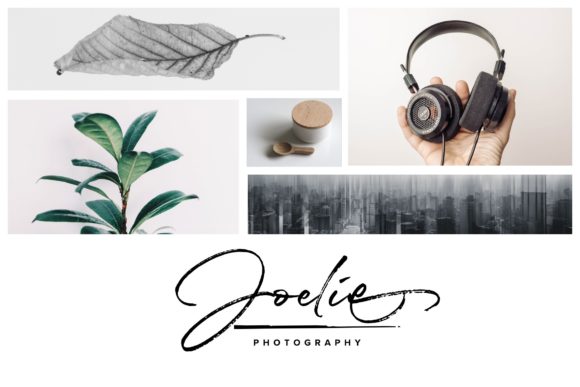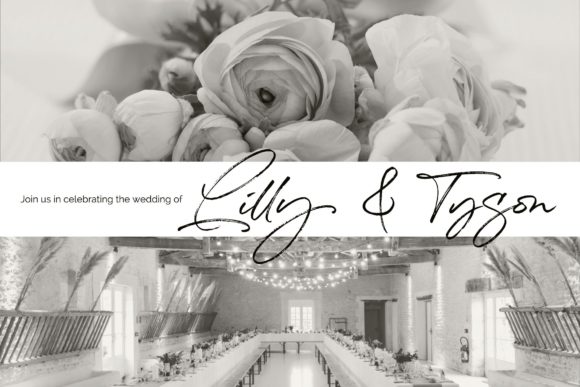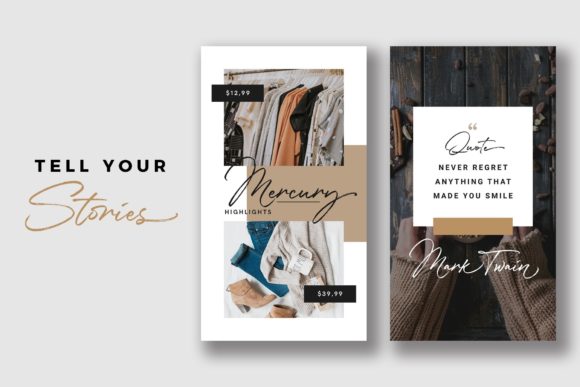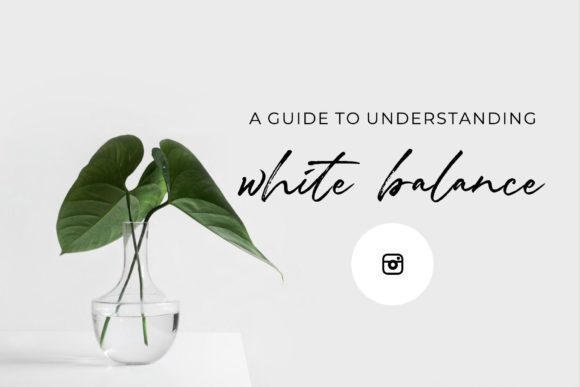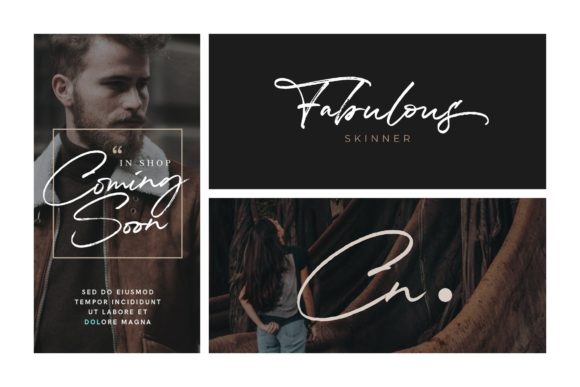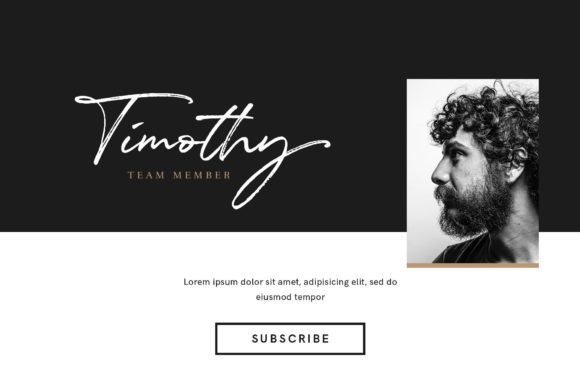
Introduction to Melodiously Script Font
Have you ever been brainstorming for a creative project, staring blankly at a piece of paper, waiting for the perfect idea to strike? It’s that moment of inspiration, when everything falls into place, that makes all the difference between a good design and a great one. For designers, the right font can be the spark that sets their imagination ablaze. And when it comes to creating eye-catching logos, branding, and quotes, there’s one font that stands out from the rest – the Melodiously Script Font.
This lovely and timeless handwritten font is a high-quality design resource that’s sure to elevate any project. With its PUA encoded features, you’ll have access to all the glyphs and swashes you need to create something truly special. And the best part? You can download it for free, complete with a transparent background, making it easy to integrate into any design.
Key Features of Melodiously Script Font
- High-quality design resource ideal for creative projects requiring elegant and sophisticated text.
- Features a transparent background, making it easy to integrate with any design element or color scheme.
- Perfect for designers looking for a unique and melodic script font to add a touch of sophistication to their designs.
Honest Review: Melodiously Script Font
I recently had the chance to work with the Melodiously Script Font on a creative project and I must say, I was quite impressed. As a designer, it’s always exciting to discover new design resources that can elevate our work.
Here are some things that work well: ✨ It’s a high-quality font that adds a touch of elegance to any design. ✨ The script style is perfect for titles and headings. ✨ It’s available for free download, which is always a bonus.
- Transparent background support is also available, making it easy to place the text over images or other backgrounds.
- The font is highly customizable, allowing you to adjust the size, color, and style to fit your design needs.
However, I did encounter a few limitations: ⚠️ The font doesn’t support ligatures, which can make it look a bit rough at times. ⚠️ The font file size is a bit large, which can impact loading times.
Overall, I was pleased with the Melodiously Script Font and would recommend it to anyone looking for a high-quality, free script font for their creative project. With a bit of tweaking, it can be a fantastic addition to any design.
Tips for Getting the Most Out of Melodiously Script Font
Experiment with different font sizes, colors, and styles to create a unique look that complements your design. Also, consider pairing the Melodiously Script Font with other fonts to achieve a balanced and visually appealing design.
Common Use Cases for Melodiously Script Font
The Melodiously Script Font is ideal for various creative projects, including wedding invitations, birthday cards, and social media graphics. Its elegant and sophisticated design makes it perfect for formal events and occasions where you want to make a lasting impression.